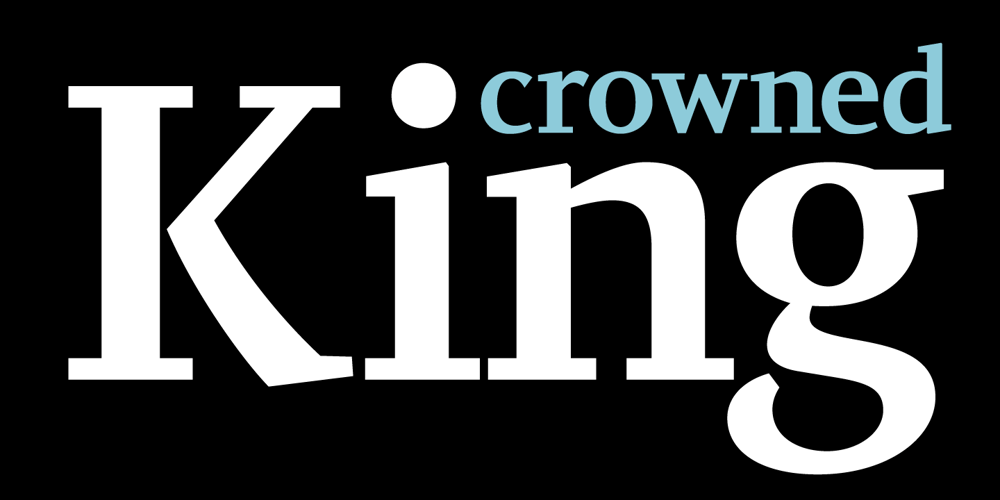
PF Diplomat Serif Font Family was designed by Panos Vassiliou and published by Parachute. PF Diplomat Serif contains 6 styles and family package options. Diplomat Serif is a modern serif typeface with Didone characteristics, quite useful for intense editorial jobs. Its open character shapes, low contrast and discreet serifs enhance legibility and provide a fresh, clean and contemporary look. Its matching sans-serif version Diplomat Sans was designed to complement it for demanding publishing and corporate applications. Supports Latin and Greek.